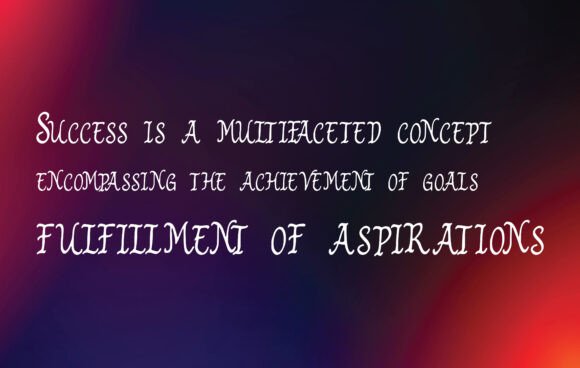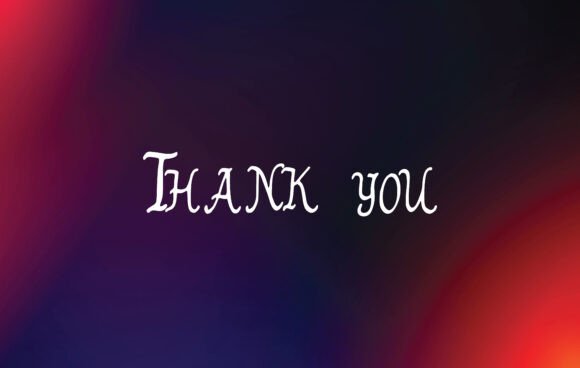
Introduction to Julieta Font
Enter Julieta Font, a stunning and elegant handwritten font that’s sure to elevate your designs to new heights. With its high-quality design and transparent background, this font is the perfect choice for creating eye-catching logos, branding, and quotes that are sure to leave a lasting impression. Whether you’re working on a personal project or a client brief, Julieta Font is an invaluable resource that’s sure to inspire your creativity.
Key Features of Julieta Font
- High-quality, elegant script font perfect for creative projects and designs.
- Comes with a transparent background, making it easy to use on any design resource.
- Unique characteristic: The Julieta Font features a beautiful, flowing script style that adds a touch of sophistication to any design.
Honest Review: Julieta Font
I recently had the chance to work with the Julieta Font, and I must say it’s been a game-changer for my creative projects. This design resource has exceeded my expectations in terms of quality and versatility.
What works well is the font’s elegant and sophisticated look, making it perfect for a variety of creative endeavors, from branding to publishing. The transparent background is also a huge plus, allowing for seamless integration with any design element.
Here are some of the key features I love about Julieta Font:
- ✨ High-quality design that looks professional and polished
- ✨ Transparent background for easy customization
That being said, I do have one limitation to note: the font’s limited character set may require additional resources for more complex projects.
⚠️ While not a deal-breaker, this limitation is worth considering for designers working on extensive creative projects.
Overall, I’m thoroughly impressed with the Julieta Font. Its high quality, elegant design, and transparent background make it an excellent addition to any designer’s toolkit. With a free download option, it’s hard to pass up this incredible design resource.
Julieta Font is a high-quality, versatile design resource ideal for various creative projects. With its elegant and sophisticated style, this font is perfect for designers seeking a unique and professional touch.
Tips for Getting the Most Out of Julieta Font
Use Julieta Font with a transparent background to create a clean and minimalist design. Experiment with different font sizes and styles to add depth and visual interest to your project.
Julieta Font is ideal for various creative projects, including logos, branding materials, business cards, and social media graphics. Its elegant and sophisticated style makes it perfect for formal events, weddings, and other special occasions.